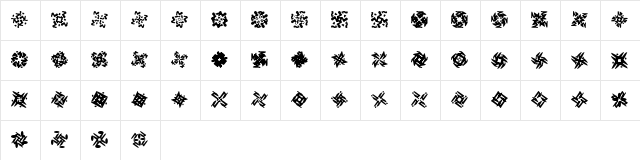
Reboot1 Reboot1
Design Context for Reboot1 Typeface
Reboot1 is a composed and adaptable typeface that performs quietly and consistently across a wide range of design contexts.